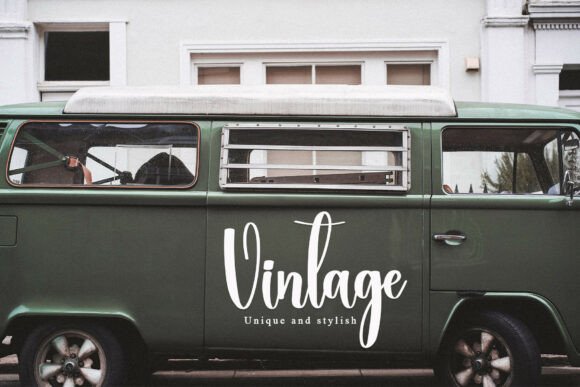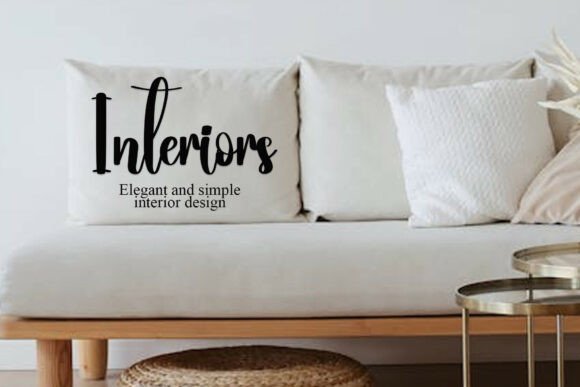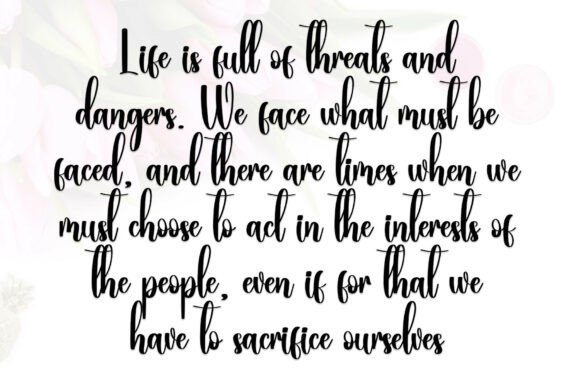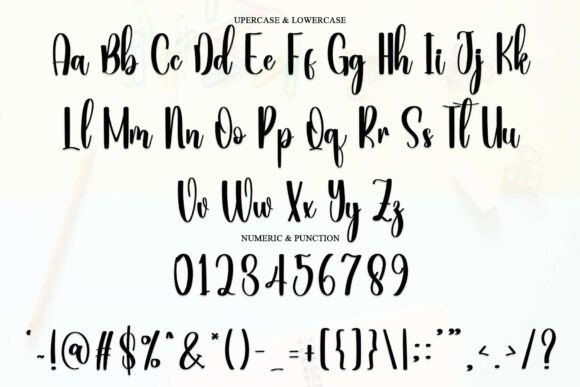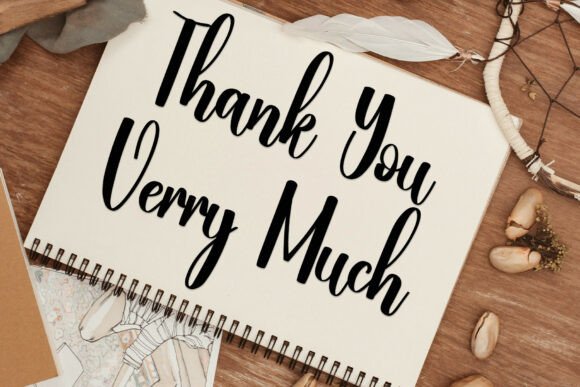
Introducing Budget Font: The Perfect Holiday Companion for Designers and Crafters
The holiday season is upon us, and with it comes the need for designs that exude joy, cheer, and a touch of nostalgia. For designers and crafters looking to add a festive flair to their projects, the Budget Font is here to save the day. This delightful typeface is specifically designed to capture the spirit of the holiday season, making it perfect for a wide range of applications, from greeting cards and gift labels to holiday-themed projects and more.
What Makes Budget Font So Special?
Budget Font stands out from the crowd with its decorative elements and unique flair. Its festive and happy design instantly evokes the feeling of the holiday season, allowing designers and crafters to create projects that are both cheerful and nostalgic. Whether you’re working on a Christmas card, a holiday party invitation, or a festive gift tag, this font is sure to bring a smile to the faces of those who see it.
One of the best things about Budget Font is its versatility. It’s perfect for a wide range of projects, including:
- Greeting cards: Create festive holiday cards that will make your loved ones feel special.
- Gift labels: Add a personal touch to your gifts with custom labels that feature the Budget Font.
- Holiday-themed projects: From party invitations to festive flyers, this font is perfect for any holiday-themed project.
- Social media graphics: Add a touch of holiday cheer to your social media graphics and posts.
- And more: The possibilities are endless with Budget Font!
Another great feature of Budget Font is that it’s PUA (Private Use Area) coded. This means that you can easily access all the amazing glyphs and ligatures that make this font so special. With PUA coding, you can:
- Easily access alternative characters and glyphs.
- Create custom ligatures and swashes.
- Mix and match different characters to create unique designs.
Why Choose Budget Font?
So why should you choose Budget Font for your holiday designs? Here are just a few reasons:
- Unique and festive design that’s sure to stand out.
- Versatile and perfect for a wide range of projects.
- PUA coded for easy access to glyphs and ligatures.
- Perfect for designers and crafters of all skill levels.
Get Ready to Add Some Holiday Cheer to Your Designs
In conclusion, Budget Font is a must-have for designers and crafters looking to add a touch of holiday cheer to their projects. With its unique and festive design, versatility, and PUA coding, this font is perfect for a wide range of applications. Whether you’re working on a holiday card, gift label, or social media graphic, Budget Font is sure to bring a smile to the faces of those who see it. So don’t wait – download Budget Font today and get ready to create some amazing holiday designs!